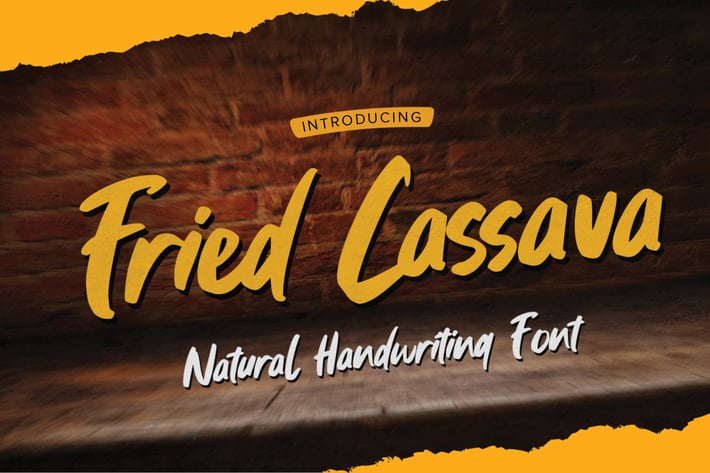
Fried Cassava - Natural Handwritten Font
Fried Cassava - Natural Handwritten Font with a natural style and dramatic movement. Crafted manually with love and passion, This font is great for your next creative project such as logos, printed quotes, invitations, cards, product packaging, headers, Logotype, Letterhead, Poster, Label, and etc.
+ Ligature
+ Multilingual